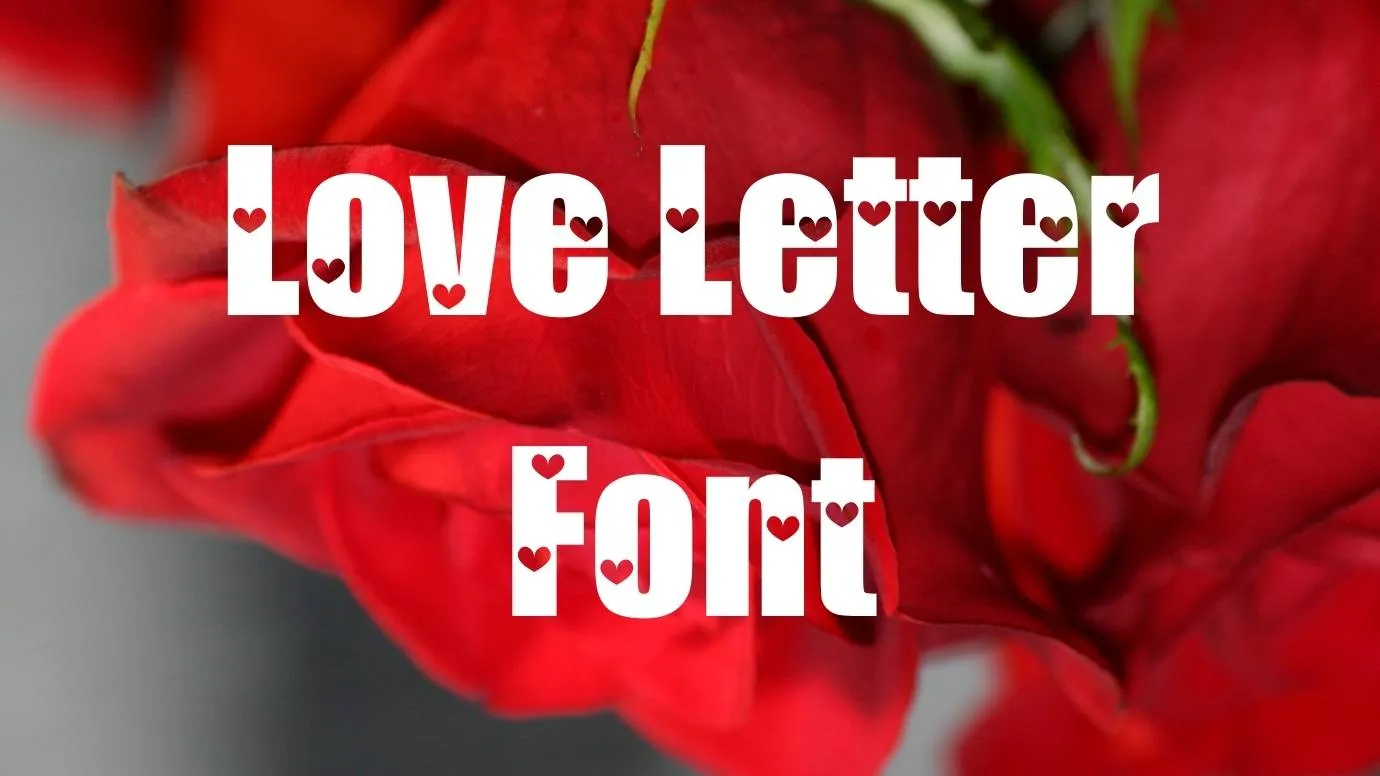
Love Letters Font Family is a very stylish and romantic display typeface. It was developed by Stimuleye. This typeface has 99 attractive characters including lowercase and uppercase letters that make a number of designs.
This typeface is best for creating various types of effective designs. It supports many languages due to its outstanding features. You can create modern and eye-catching styles in combination with EA Sports Font.
Love Letters Font